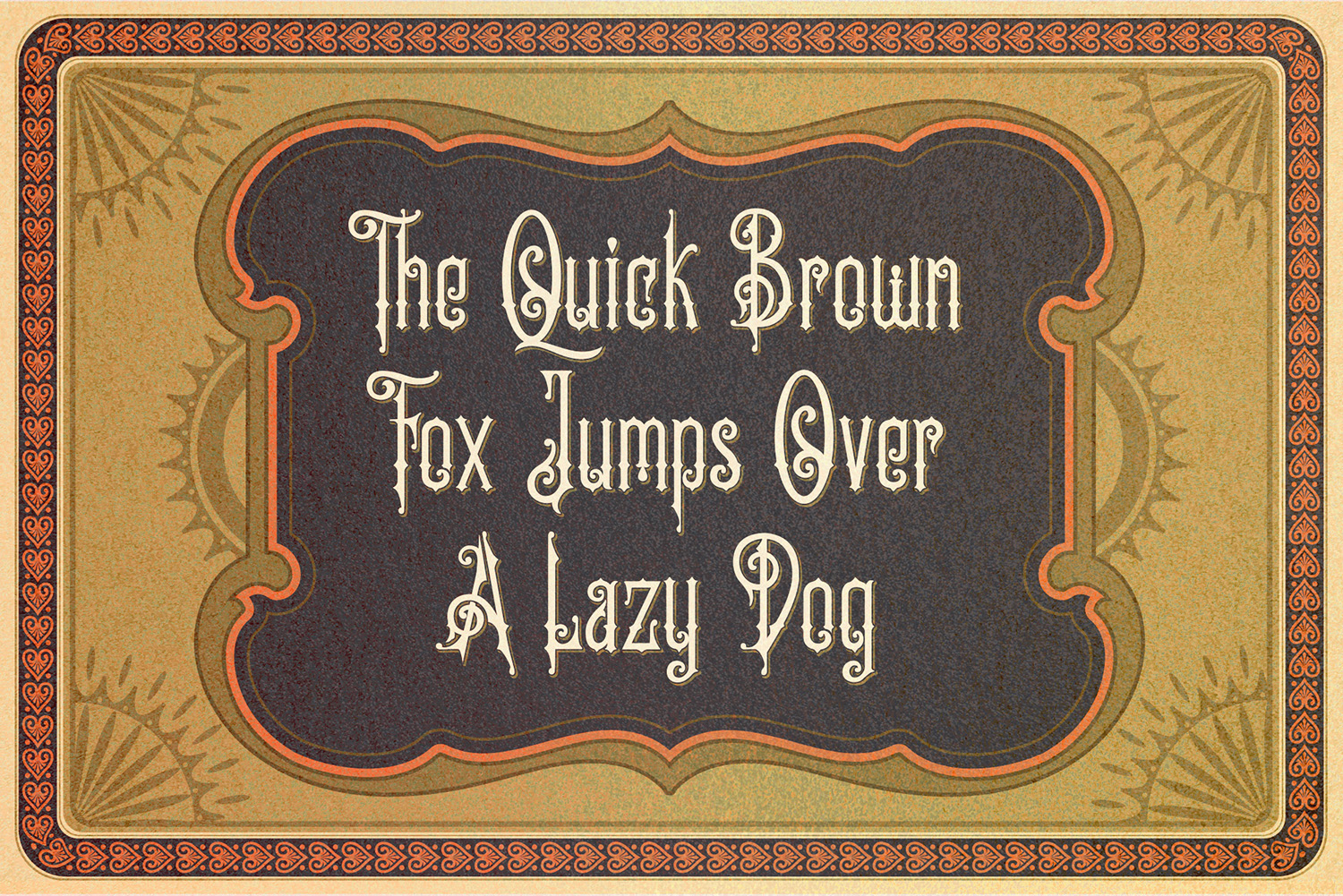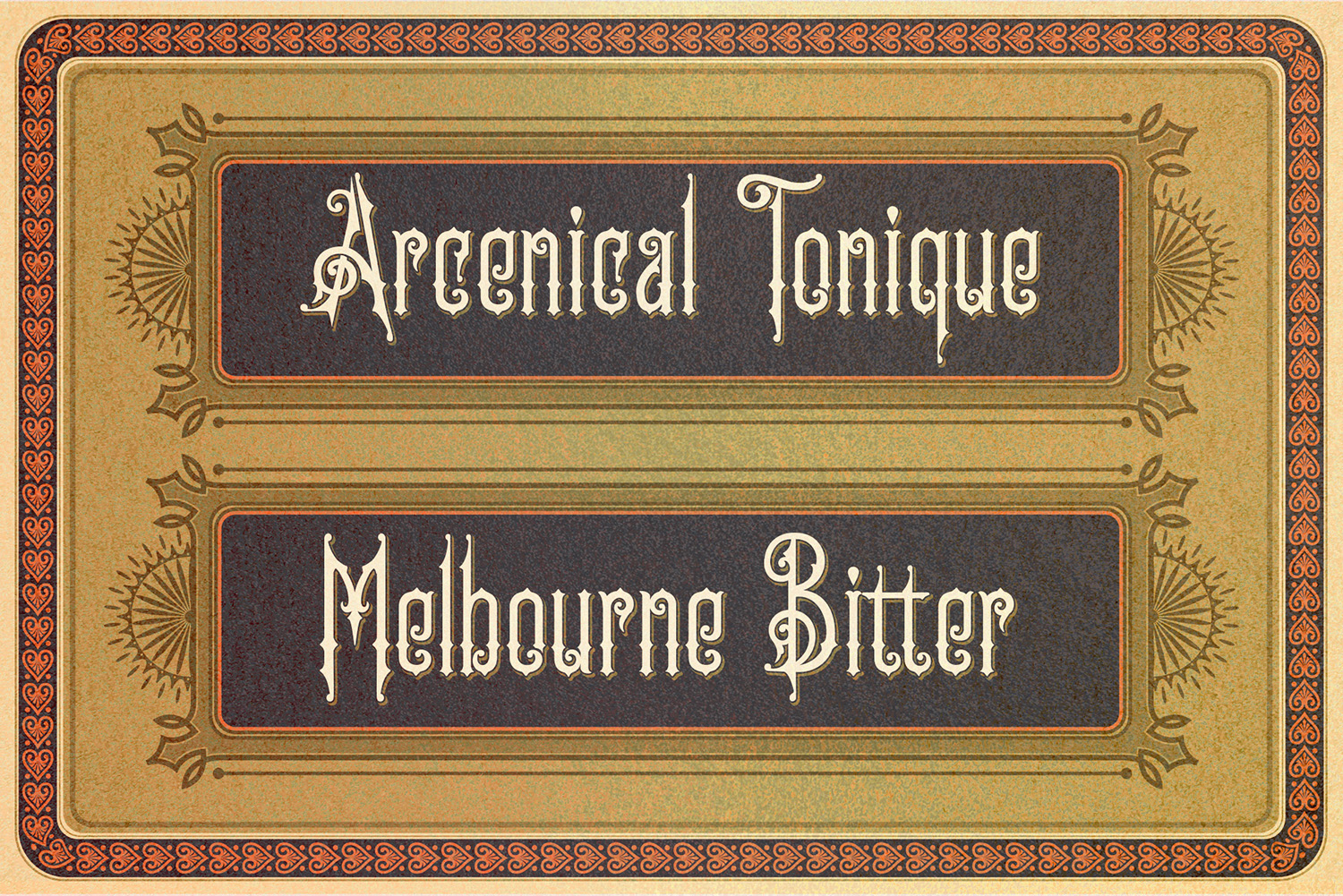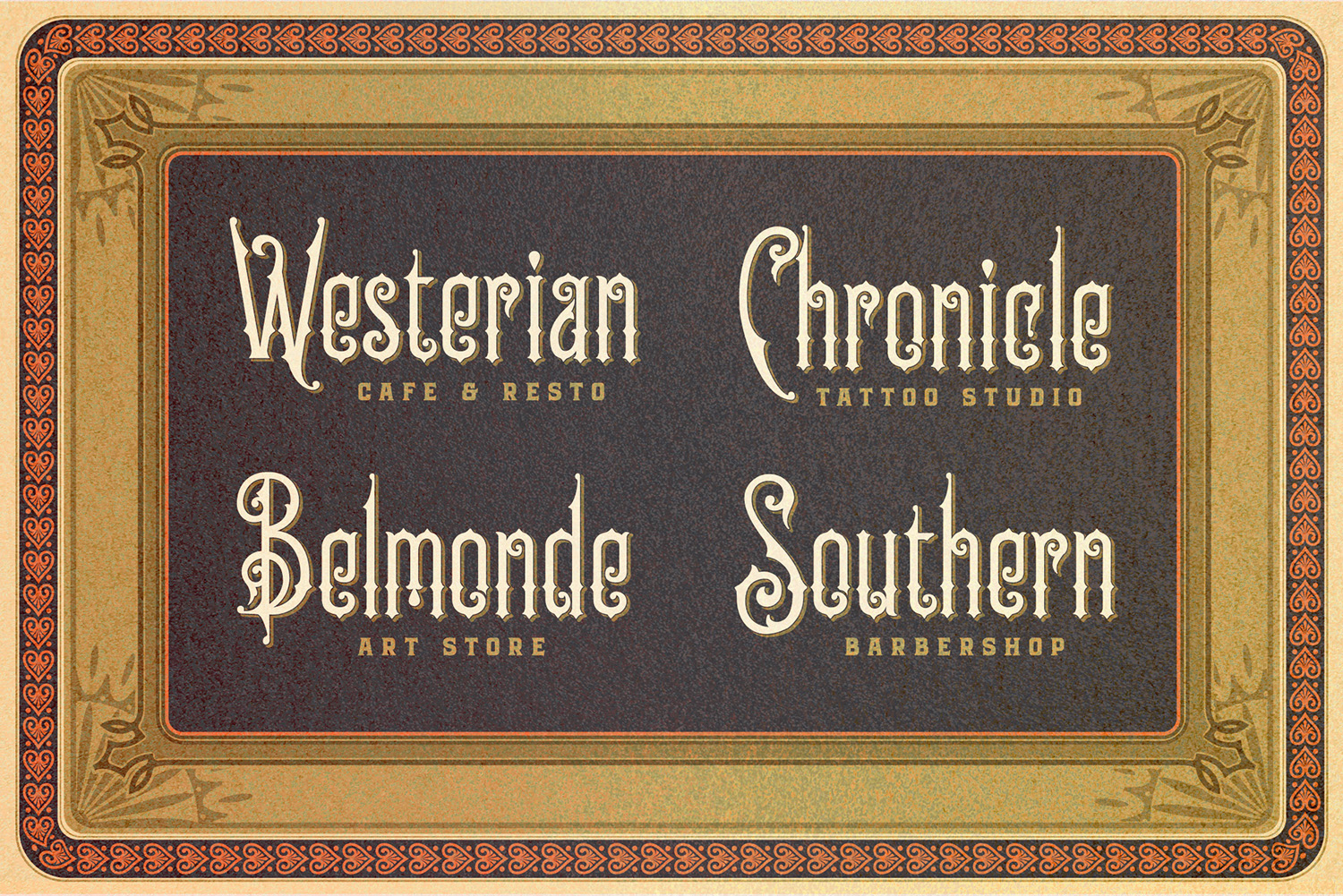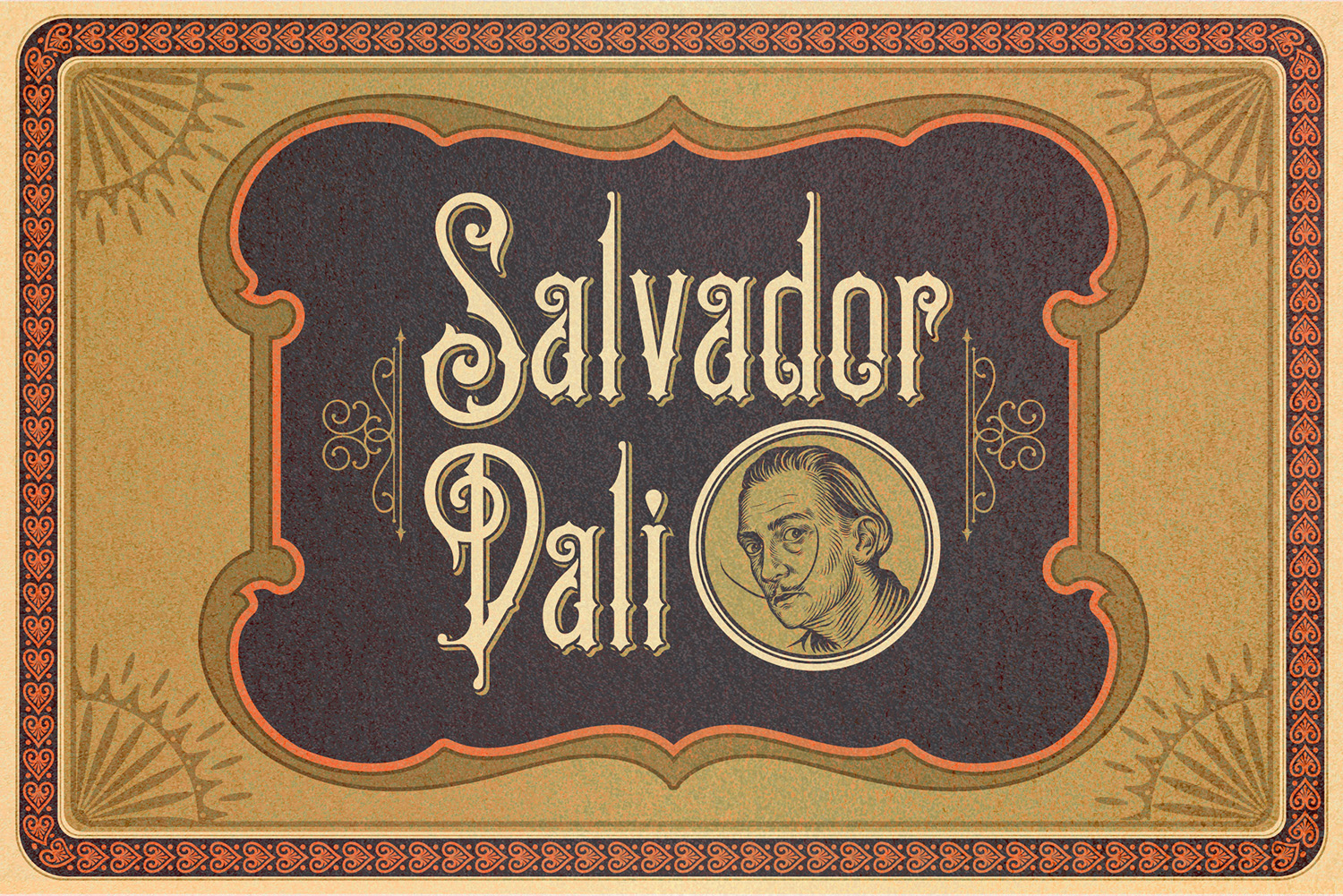
Old Finlander Free Font
Old Finlander Free Font is inspired from victorian style, I create with detail inserting ornament elements into letters very suitable as to make a design choice for books cover, magazines, packaging, branding, t-shirt design, poster, signage, and more another creative project. This free typeface was designed by a talented Bangkit Tri Setiadi. If you like it don’t forget to check out the full version.